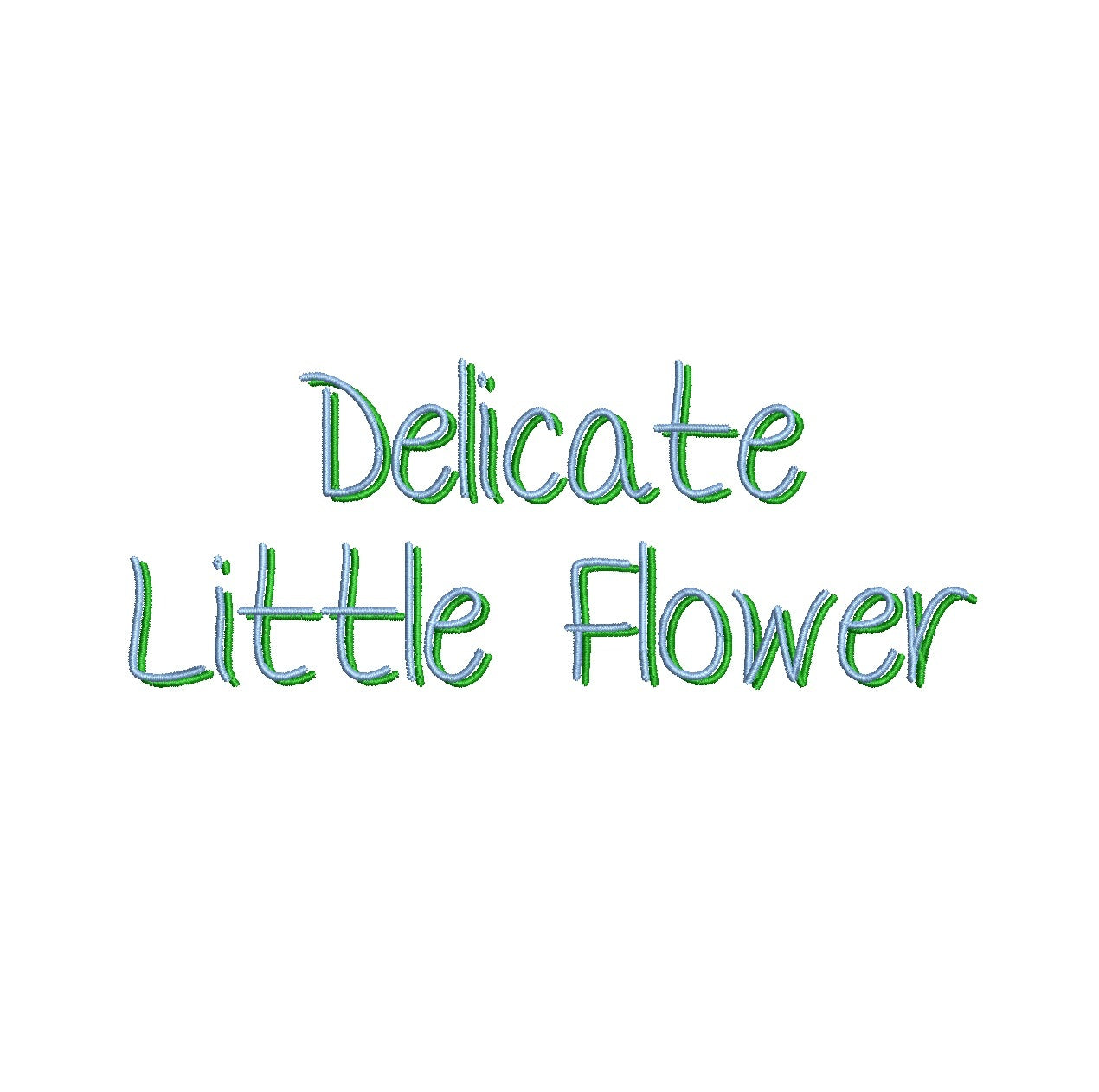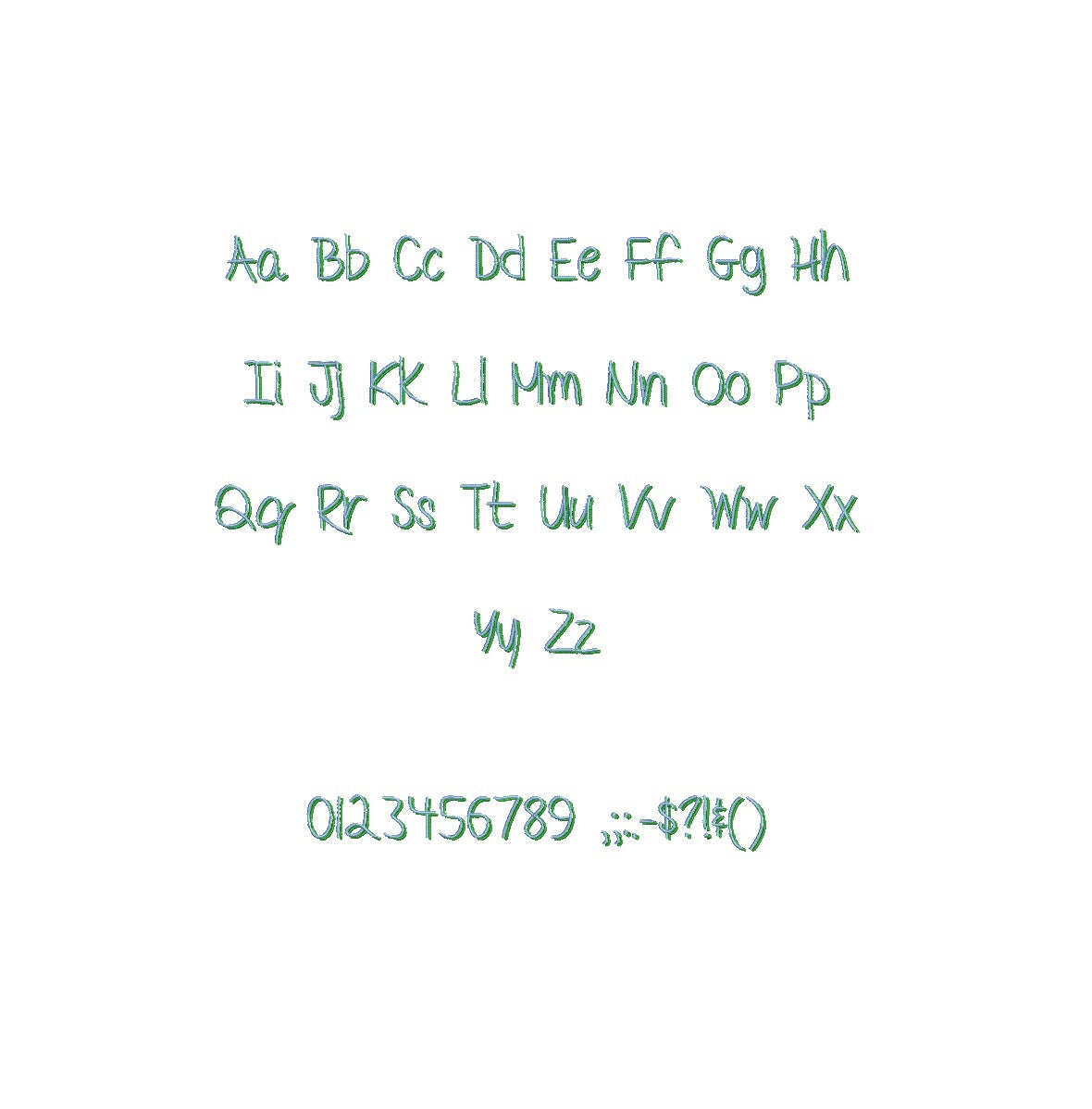
Elevate your embroidery with the charming Delicate Little Flower Shadow ESA font. Crafted for Wilcom Studio e4.5.6 and Hatch 3 versions and newer, this font seamlessly combines delicacy and compatibility. Design intricate creations with its captivating shadow effect, adding depth and grace to your lettering. Perfect for various applications, from floral motifs to elegant text layouts. Unleash your creativity as Delicate Little Flower Shadow ESA font enhances your embroidery. Elevate your designs and make a lasting impression. Choose this font to infuse your creations with a touch of enchanting beauty, redefining your embroidery artistry with delicate sophistication.